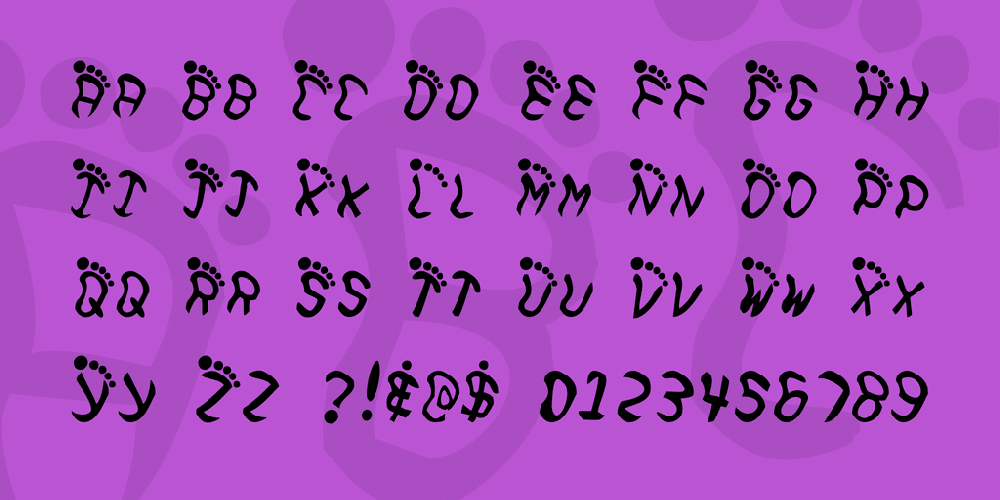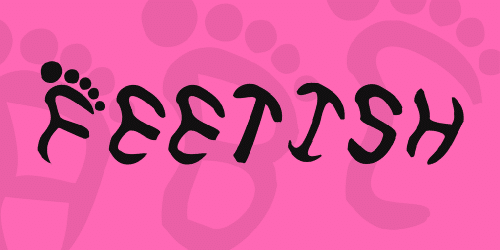
My dear friend Kim casually mentioned one day that I should make a font called Fetish, but being the wacko I am, I decided to put a twist on things. So I found myself an impression of a foot and created my font with it! To type the footprint, use alt-250!